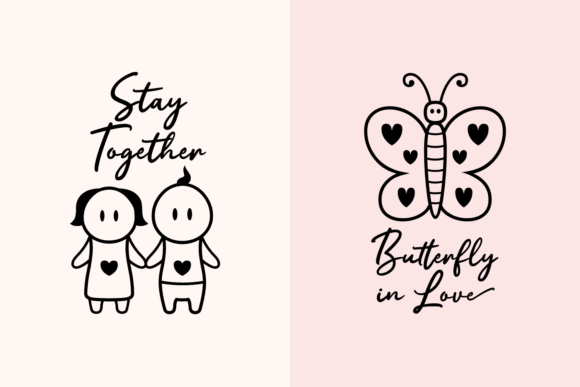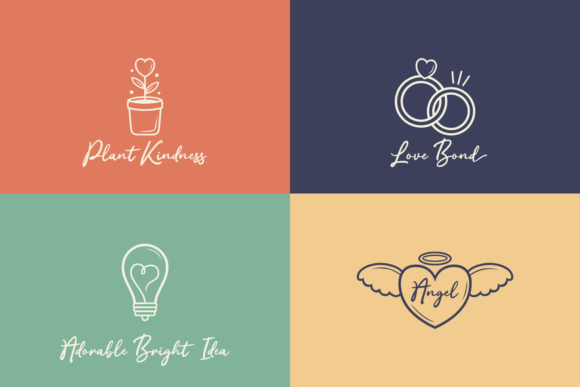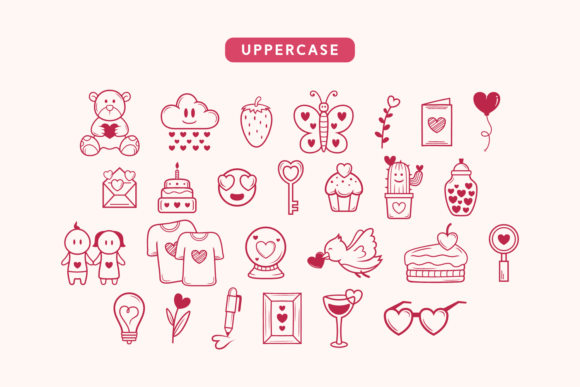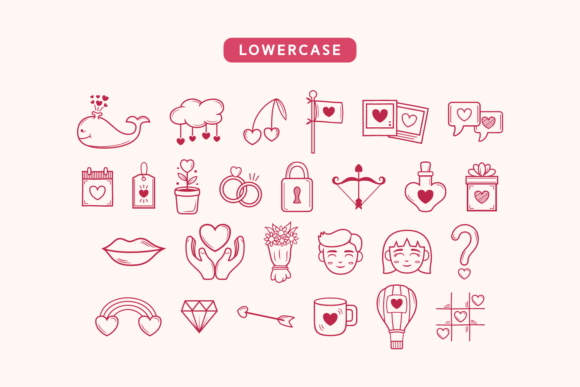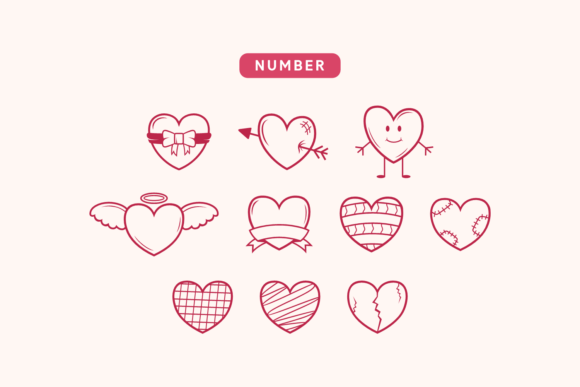
Bingo Loves Font: The Cute Dingbats Typeface for Sweet Designs
Are you a designer or crafter looking for a unique and adorable font to make your designs extra special? Look no further than Bingo Loves Font! This charming dingbats typeface is designed to help you create sweet and personalized designs for your loved ones. In this article, we’ll dive into the features and benefits of Bingo Loves Font, and explore how you can use it to create stunning designs.
What is Bingo Loves Font?
Bingo Loves Font is a cute dingbats typeface that is perfect for creating heartfelt designs. The font features a range of adorable symbols, including hearts, stars, flowers, and more. Each symbol is carefully crafted to be both visually appealing and easy to use. With Bingo Loves Font, you can add a touch of whimsy and personality to your designs, making them truly special.
Features of Bingo Loves Font
Bingo Loves Font comes with a range of features that make it a must-have for designers and crafters. Some of the key features include:
- Adorable Symbols: The font features a range of cute symbols, including hearts, stars, flowers, and more.
- Personalizable: With Bingo Loves Font, you can create personalized designs that are tailored to your loved ones.
- Versatile: The font can be used for a range of design projects, from greeting cards and invitations to social media graphics and more.
Benefits of Using Bingo Loves Font
So why should you choose Bingo Loves Font for your design projects? Here are just a few benefits of using this adorable dingbats typeface:
- Adds a Personal Touch: With Bingo Loves Font, you can add a personal touch to your designs, making them extra special for your loved ones.
- Stand Out from the Crowd: The font’s unique and adorable symbols will help your designs stand out from the crowd and grab attention.
- Saves Time: The font’s ease of use means you can create stunning designs in no time, saving you time and effort.
- Perfect for Gift-Giving: Bingo Loves Font is perfect for creating personalized gifts, such as customized mugs, t-shirts, and more.
How to Use Bingo Loves Font
Using Bingo Loves Font is easy! Here are the steps to get started:
- Choose Your Design: Choose the design project you want to work on, whether it’s a greeting card, invitation, or social media graphic.
- Select Your Symbols: Browse through the font’s symbols and select the ones you want to use in your design.
- Customize Your Design: Customize your design by adjusting the size, color, and placement of the symbols.
- Save and Share: Save your design and share it with your loved ones.
Design Ideas with Bingo Loves Font
Need some inspiration for your design projects? Here are a few ideas to get you started:
- Customized Greeting Cards: Create personalized greeting cards for birthdays, holidays, and special occasions.
- Wedding Invitations: Use Bingo Loves Font to create adorable wedding invitations that set the tone for a sweet and romantic celebration.
- Social Media Graphics: Create eye-catching social media graphics that showcase your personality and style.
- DIY Crafts: Use Bingo Loves Font to create custom DIY crafts, such as customized mugs, t-shirts, and more.
Bingo Loves Font is a charming dingbats typeface that is perfect for designers and crafters who want to create sweet and personalized designs. With its adorable symbols, ease of use, and versatility, this font is a must-have for anyone looking to add a touch of whimsy and personality to their designs. So why wait? Download Bingo Loves Font today and start creating stunning designs for your loved ones!